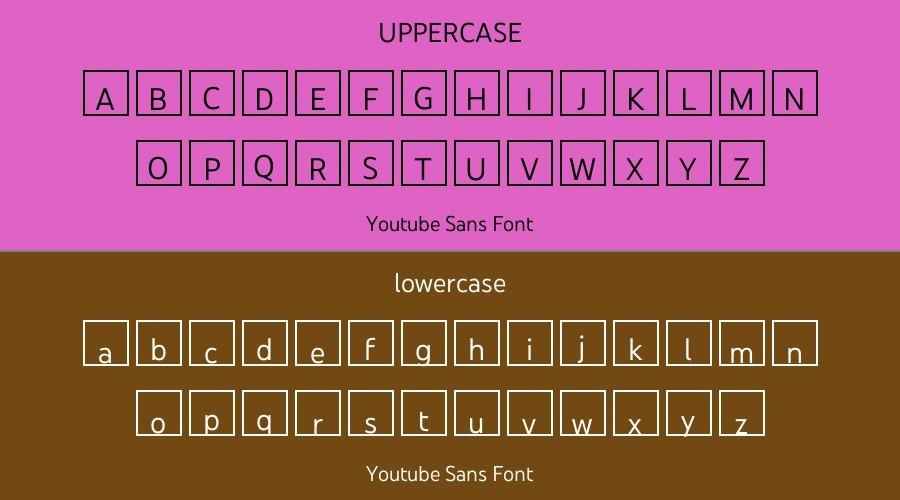
About Youtube Sans Font
Youtube Sans Font embodies typographic excellence through its masterful combination of high x-height and functional clarity. Created for brand guidelines, this typeface delivers exceptional consistency and technical mastery across all applications. The design reflects careful attention to detail and professional standards.
Advanced capabilities include distinctive subtle details and versatile traditional styling, giving designers creative control. When used in technical diagrams, Youtube Sans Font exhibits remarkable distance readability. The harmonious balance between x-height proportion and artistic value sets this typeface apart.